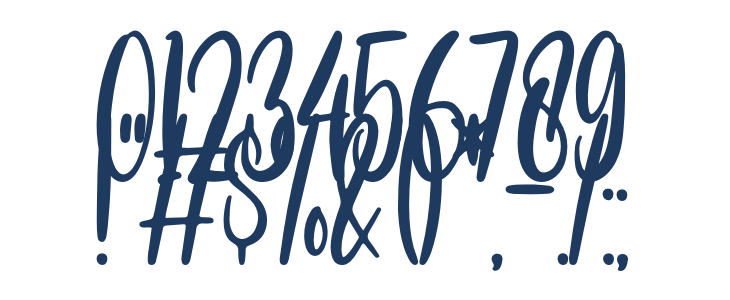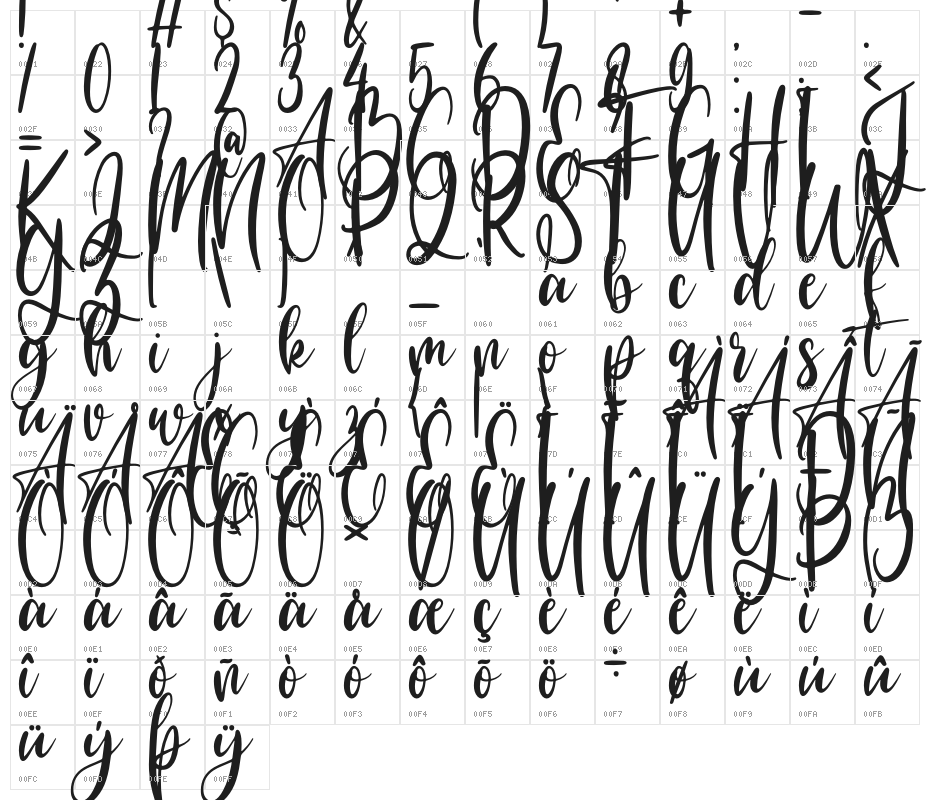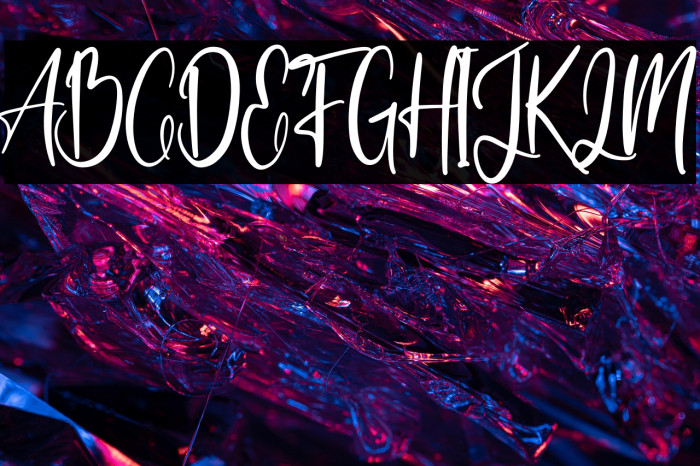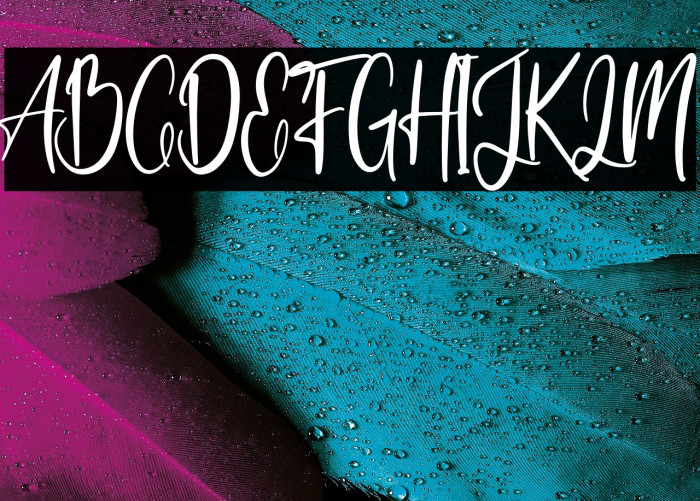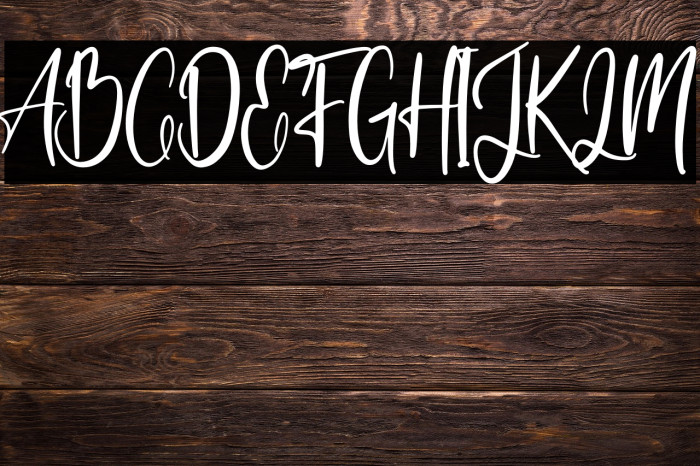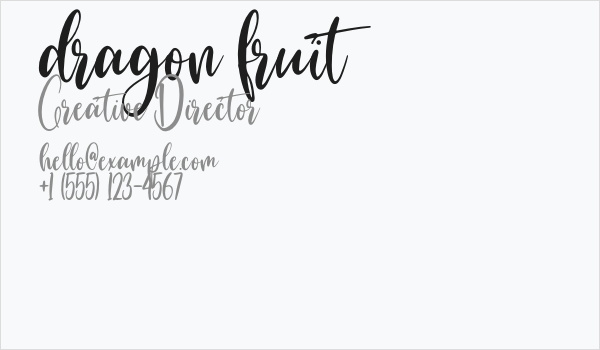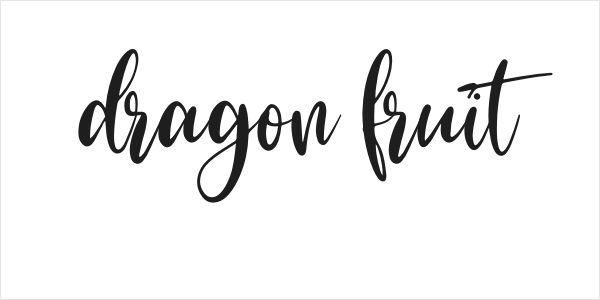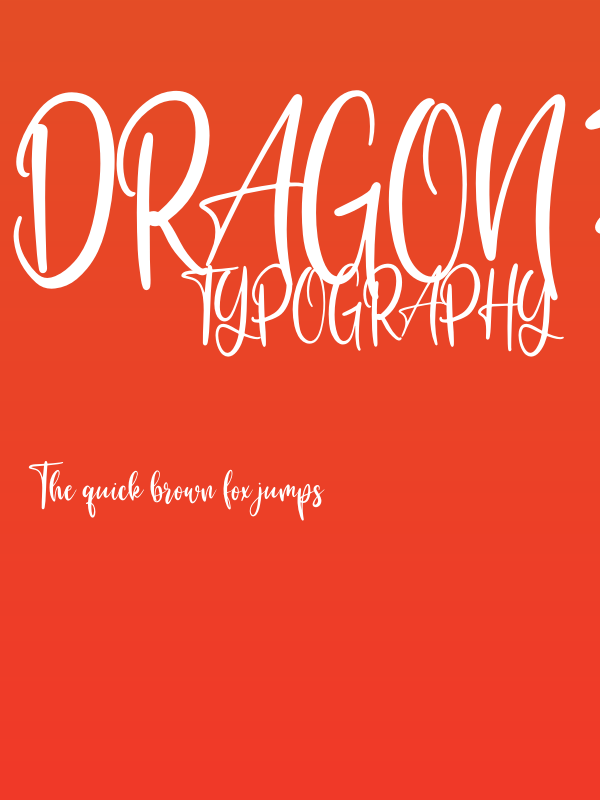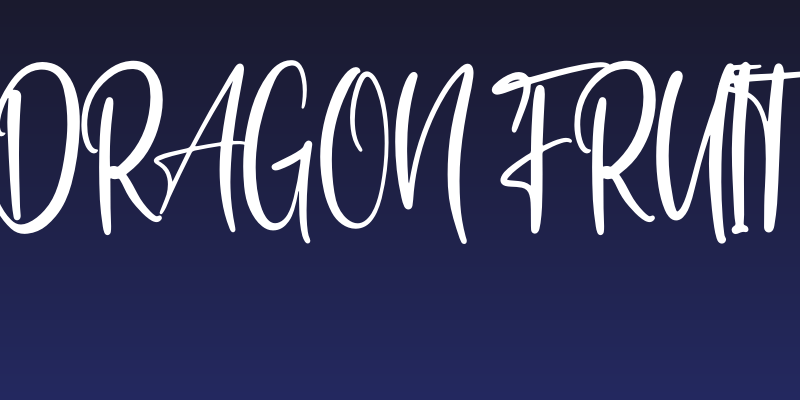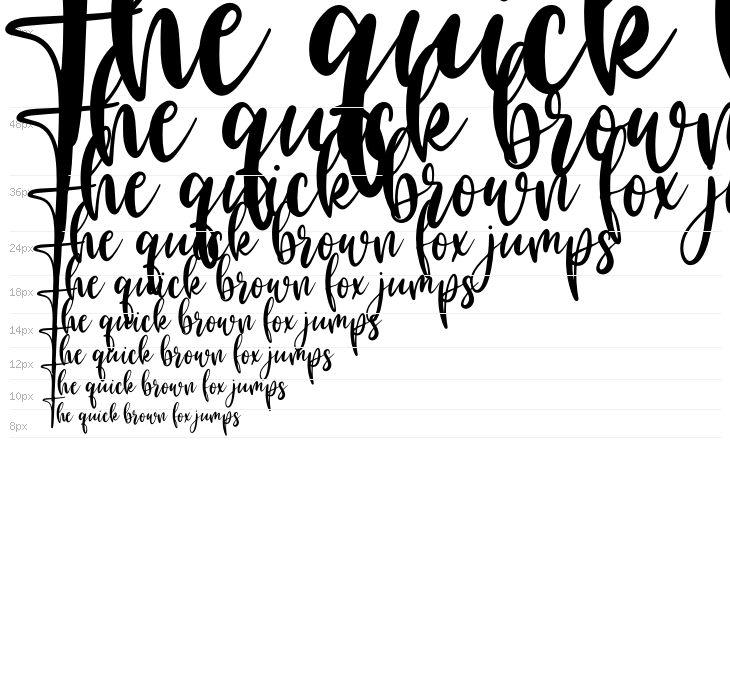
dragon fruit Font
dragon fruit Description
This font features a dynamic and expressive handwritten style, characterized by its fluid and flowing letterforms. The uppercase letters are tall and slender, with a slight slant that adds a sense of motion and elegance. The lowercase letters maintain a consistent style, with loops and curves that enhance the handwritten feel. The numbers and special characters are crafted with the same attention to detail, ensuring a cohesive look across all glyphs. The overall appearance is both artistic and approachable, making it suitable for a variety of creative projects.